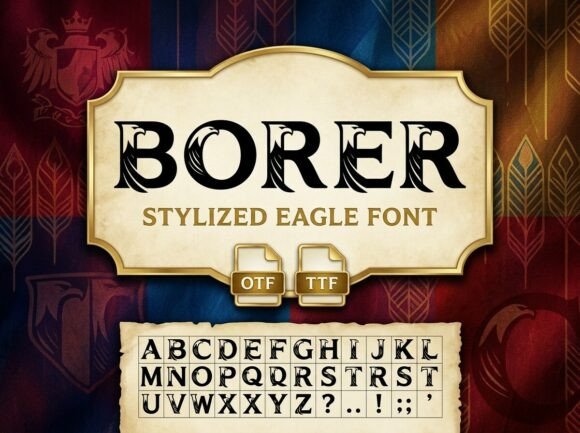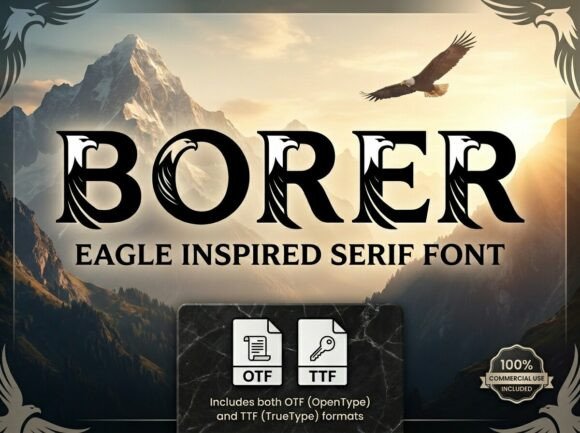
Take Flight with Borer: The Majestic Display Typeface
In the world of typography, few fonts capture the essence of strength and elegance as effectively as Borer. This majestic display typeface is designed to evoke a sense of heroic and heraldic grandeur, making it the perfect choice for designers and crafters looking to create stunning visual identities. With its bold, high-contrast letterforms and unique integration of rhythmic, hand-drawn eagle silhouettes, Borer is poised to take your designs to new heights.
The Inspiration Behind Borer
Borer’s design is rooted in the intersection of ancient sigils and modern sports branding. The font’s creator sought to bridge the gap between these two seemingly disparate worlds, resulting in a typeface that is both timeless and contemporary. The eagle silhouettes integrated into the negative space and stems of every character are a nod to the power and freedom associated with these majestic birds, adding a touch of dynamism and energy to each letterform.
Key Features of Borer
- Bold, High-Contrast Letterforms: Borer’s letterforms are designed to make a statement, with bold lines and high contrast creating a sense of depth and dimensionality.
- Rhythmic, Hand-Drawn Eagle Silhouettes: The eagle silhouettes integrated into the negative space and stems of every character add a touch of elegance and sophistication, while also conveying a sense of power and freedom.
- Unique Character Design: Each character in the Borer font is uniquely designed, with the eagle silhouettes carefully crafted to create a sense of rhythm and flow.
Use Cases for Borer
Borer is a versatile font that can be used in a variety of contexts, including:
- Independent Athletic Team Logos: Borer’s bold, heroic design makes it the perfect choice for athletic teams looking to create a strong and memorable brand identity.
- Historical Military Gaming: The font’s heraldic and sigil-inspired design elements make it well-suited for historical military gaming applications, such as game titles, logos, and in-game assets.
- Outdoor Adventure Apparel: Borer’s rugged, adventurous feel makes it a great fit for outdoor apparel brands looking to create a strong and recognizable brand identity.
- High-Impact Social Media Headers: The font’s bold, attention-grabbing design makes it perfect for social media headers, where it can help to create a strong and memorable visual identity.
Why Choose Borer?
With so many fonts available, why choose Borer? Here are just a few reasons why this majestic display typeface stands out from the crowd:
- Unique Design: Borer’s integration of eagle silhouettes and bold, high-contrast letterforms creates a truly unique and memorable design.
- Versatility: Borer can be used in a wide range of contexts, from athletic team logos to historical military gaming and outdoor adventure apparel.
- High-Impact: The font’s bold design makes it perfect for creating high-impact visual identities that demand attention.
In conclusion, Borer is a majestic display typeface that is sure to take your designs to new heights. With its bold, high-contrast letterforms and unique integration of rhythmic, hand-drawn eagle silhouettes, this font is the perfect choice for designers and crafters looking to create stunning visual identities. Whether you’re working on an athletic team logo, historical military gaming project, outdoor adventure apparel brand, or high-impact social media headers, Borer is the premier choice for creating a strong and memorable brand identity.